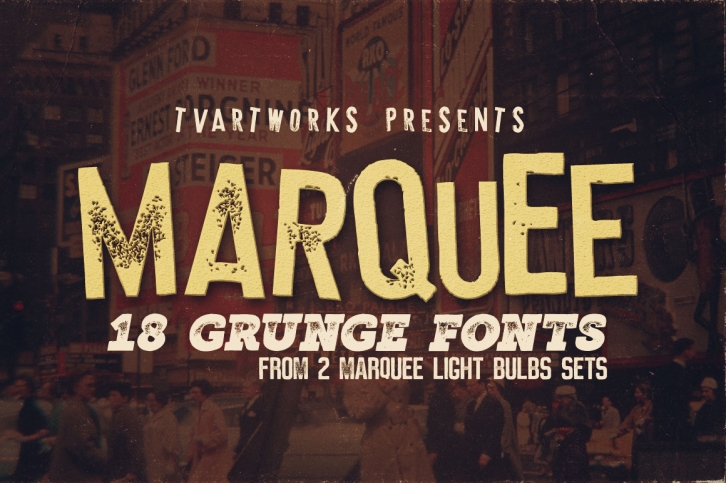
Marquee is a trendy and unique font with an authentic style. It was designed by tvartworks and it's a great choice for creative people who need such a font. It was released on October 9, 2017 and the file size is 12.36 MB. Marquee will add an organic vibe to any design idea!